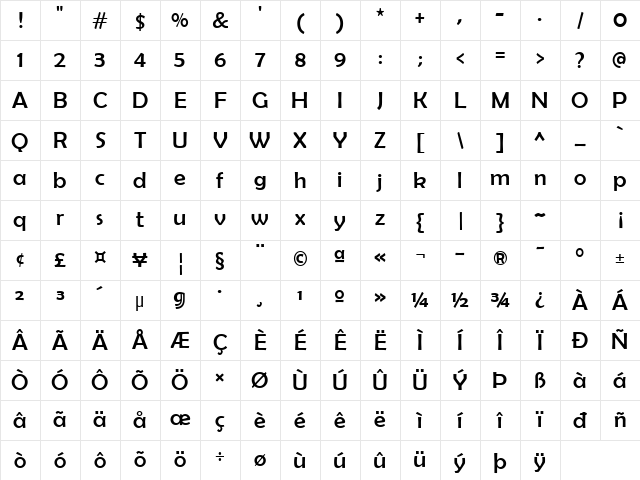
Complete Berlin Sans FB Regular glyph index. Displaying only characters natively supported by Berlin Sans FB Regular font.
Berlin Sans FB is a composed and adaptable typeface that performs quietly and consistently across a wide range of design contexts.